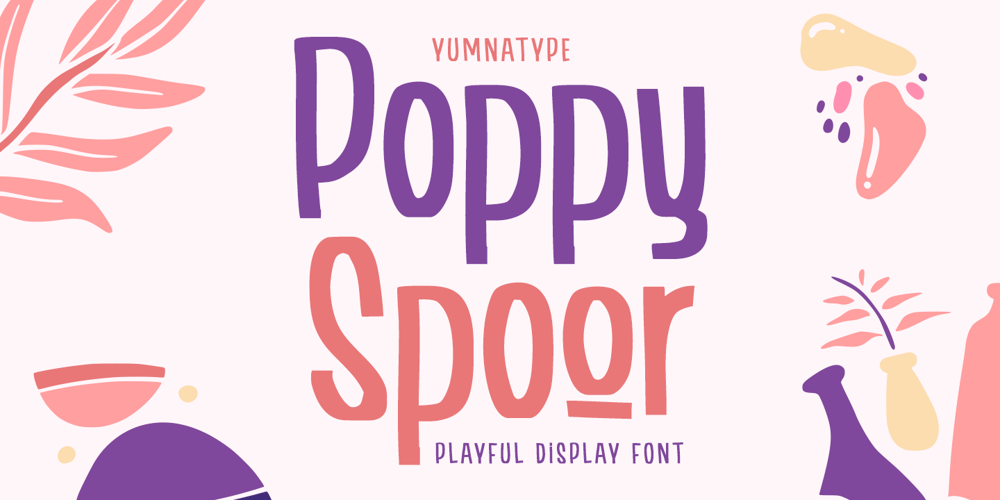
Poppy Spoor
Poppy Spoor font
Poppy Spoor Font Family was designed by Donis Miftahudin and published by Yumna Type. Poppy Spoor contains 2 styles and family package options. Would you like a legible, professional, prominent font? Well, if that is what you want, you will probably have trouble finding one as it is a time-wasting process and is a hard challenge. Let us introduce you to a perfect font for any project, the Poppy Spoor.Poppy Spoor, unlike the other display fonts, is a display font with rather square letters to show you fun, soft, modern impressions due to the thin line designs in low contrasts. This font type, giving you a clipart as a bonus, is legible and is better applied for big text sizes. You can maximize your designs with Poppy Spoor’s features to remain the best in every design at any time.Features: Alternates Ligatures Multilingual Supports PUA Encoded Numerals and Punctuations Poopy Spoor fits best for various design projects, such as brandings, posters, banners, headings, magazine covers, quotes, invitations, name cards, printed products, merchandise, social media, etc. Find out more ways to use this font by taking a look at the font preview.Thanks for purchasing our fonts. Hopefully, you have a great time using our font. Feel free to contact us anytime for further information or when you have trouble with the font. Thanks a lot and happy designing.